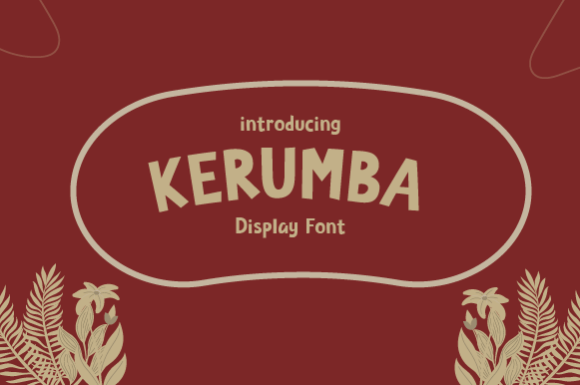
Introducing Kerumba Font: The Ultimate Handwriting Font for Your Designs
In the world of typography, fonts play a crucial role in conveying the tone and personality of a brand or design. With the numerous font options available, it can be challenging to find the perfect one that adds a personal touch to your project. However, if you’re looking for a unique and eye-catching font that brings the spontaneous charm of handwriting to your designs, look no further than Kerumba Font. In this article, we’ll explore the features and benefits of Kerumba Font and how it can elevate your designs to the next level.
What is Kerumba Font?
Kerumba Font is a handwriting font that boasts a lively and dynamic stroke, making it perfect for adding a personal touch to any project. Its energetic style is designed to make your text stand out, whether you’re designing a logo, creating social media graphics, or crafting a heartfelt invitation. With Kerumba Font, you can add a touch of personality to your designs and make them more engaging and memorable.
Key Features of Kerumba Font
- Unique and Eye-Catching Design: Kerumba Font features a distinctive and captivating design that sets it apart from other fonts.
- Lively and Dynamic Strokes: The font’s strokes are lively and dynamic, adding a touch of spontaneity and energy to your designs.
- Perfect for Handwritten Projects: Kerumba Font is ideal for projects that require a handwritten touch, such as invitations, social media graphics, and logos.
- Easy to Read: Despite its handwriting style, Kerumba Font is easy to read, making it perfect for body text and headings.
Benefits of Using Kerumba Font
Using Kerumba Font in your designs offers several benefits, including:
- Personal Touch: Kerumba Font adds a personal touch to your designs, making them more relatable and engaging.
- Uniqueness: The font’s unique design ensures that your designs stand out from the crowd and are memorable.
- Versatility: Kerumba Font can be used in a variety of projects, from logos and social media graphics to invitations and more.
How to Use Kerumba Font in Your Designs
Using Kerumba Font in your designs is easy. Here are some tips to get you started:
- Pair it with Other Fonts: Kerumba Font can be paired with other fonts to create a unique and visually appealing design.
- Use it for Headings and Titles: The font’s energetic style makes it perfect for headings and titles, adding a touch of personality to your designs.
- Add a Personal Touch: Use Kerumba Font to add a personal touch to your designs, making them more relatable and engaging.
Inspiration with Kerumba Font
Kerumba Font can be used in a variety of projects, from creative designs to commercial projects. Here are some inspiring examples of how you can use Kerumba Font:
- Logo Design: Use Kerumba Font to create a unique and memorable logo that reflects your brand’s personality.
- Social Media Graphics: Add a personal touch to your social media graphics with Kerumba Font, making them more engaging and shareable.
- Invitations and Stationery: Use Kerumba Font to create beautiful and personalized invitations and stationery that reflect your brand’s style.
In conclusion, Kerumba Font is a unique and eye-catching font that brings the spontaneous charm of handwriting to your designs. With its lively and dynamic strokes, Kerumba Font is perfect for adding a personal touch to any project. Whether you’re designing a logo, creating social media graphics, or crafting a heartfelt invitation, Kerumba Font’s energetic style will make your text stand out.